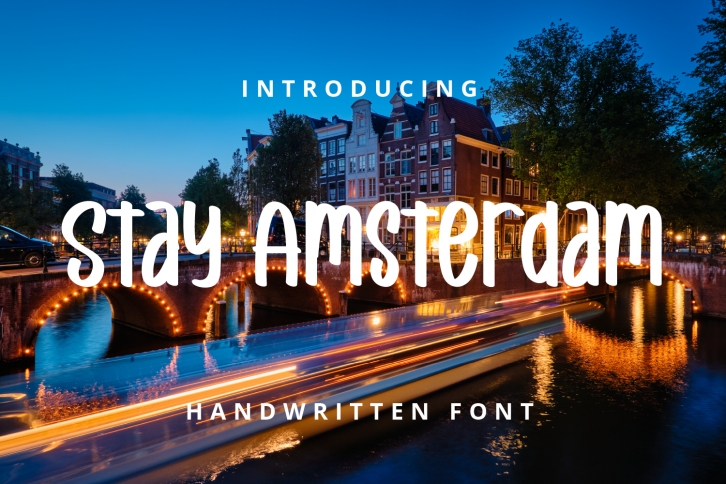
Stay Amsterdam is a simple and adaptable handwritten font. This neat font will look great on a variety of design ideas. It will add a fun and friendly touch to each of your projects!